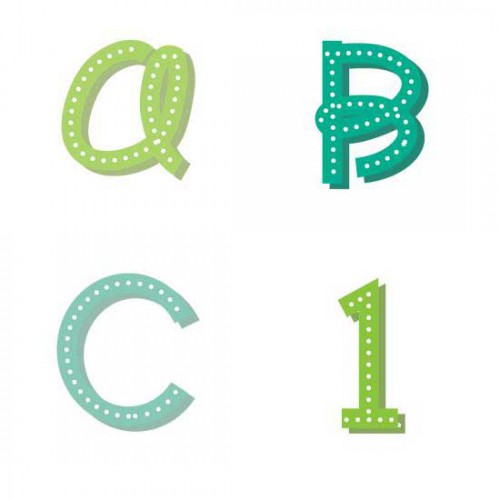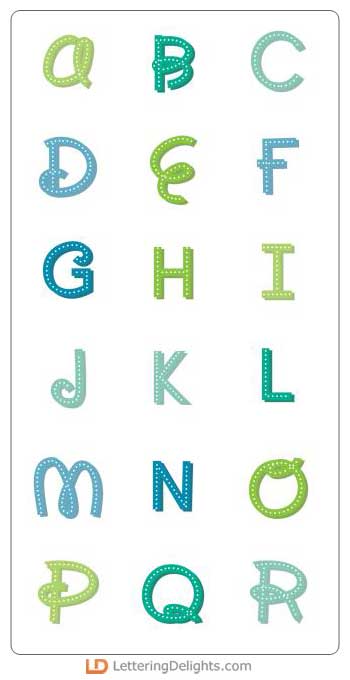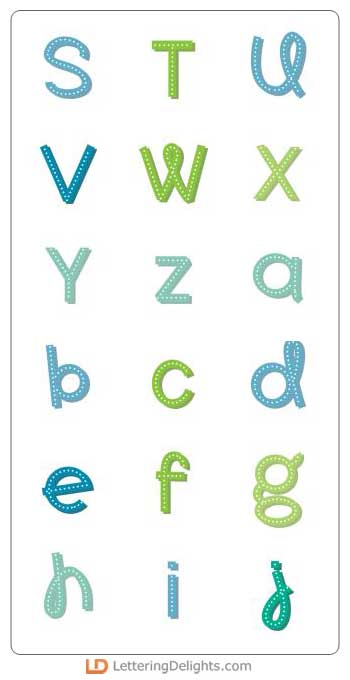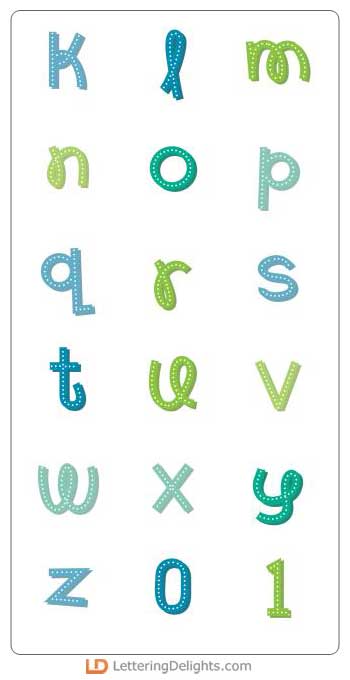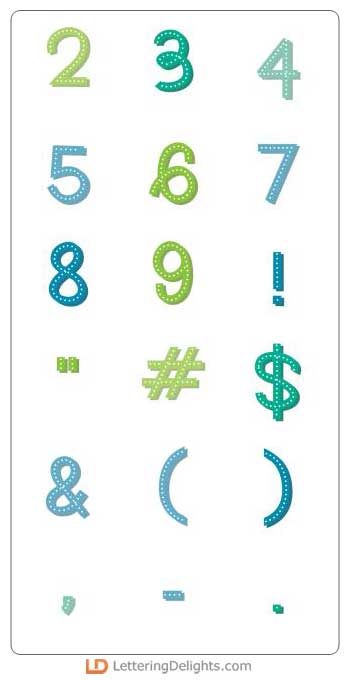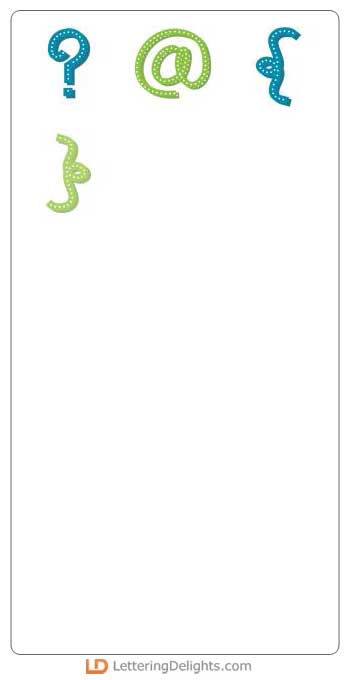
Perfect for guys, this alphabet is a little random, a little messy, and in the right color family so as not to be mistaken for anything girly...just right for the big, strong man in your life.